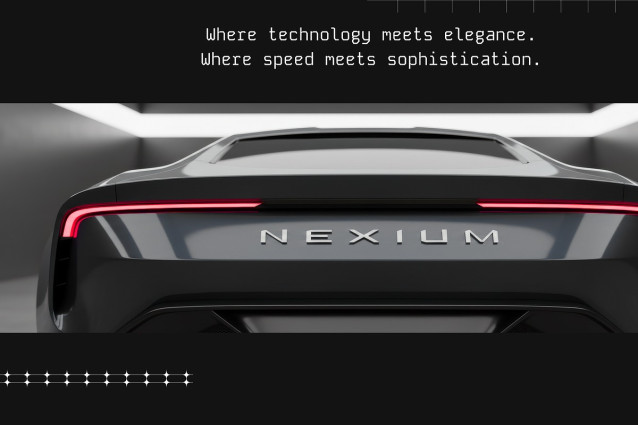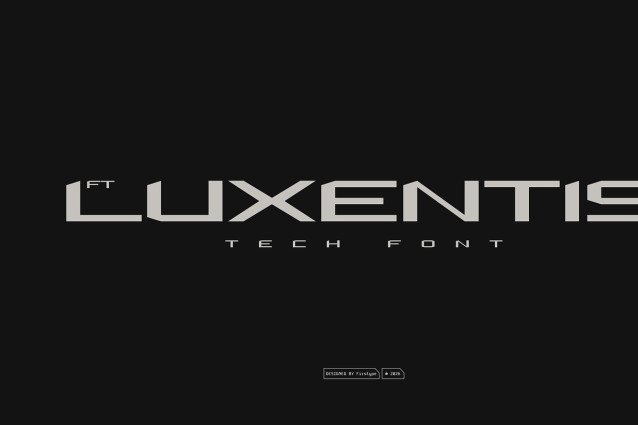
Ft Luxentis Font
Ft Luxentis Font is a premium high-tech typeface inspired by the world of luxury automotive design, futuristic engineering, and modern technology. Created for brands that demand power, precision, and elegance, Luxentis brings a bold visual identity that feels fast, exclusive, and sophisticated.
This typeface is built with sharp geometry, aerodynamic forms, and balanced proportions that reflect the spirit of supercars, electric vehicles, and cutting-edge innovation. Every character is designed to communicate strength and refinement at the same time, making Luxentis perfect for premium branding, automotive identities, high-end technology products, and futuristic visual systems.
FT LUXENTIS is not just a font, it is a statement of luxury and performance. It speaks to brands that move forward, embrace innovation, and position themselves at the top of their industry.
Designed with clarity and versatility in mind, Luxentis performs beautifully in both large display sizes and refined branding applications. From bold logotypes to digital interfaces, it maintains its powerful presence while staying clean and readable.